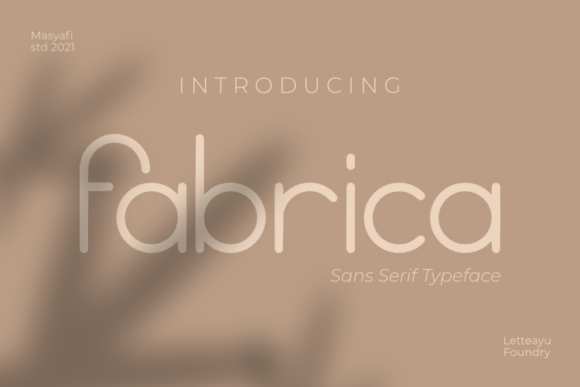
Unleash the Fashion-Forward Edge with Fabrica: The Sans Serif Font That Speaks Style
In a world where style and sophistication reign supreme, meet Fabrica - the sans serif font that's poised to transform your designs into fashion masterpieces. This meticulously crafted font exudes a minimalist allure, yet packs a punch with its ability to elevate your projects to new heights.
Fabrica is the brainchild of Letterayu, a renowned font foundry known for their impeccable attention to detail and unwavering commitment to quality. This font is a testament to their dedication, seamlessly blending simplicity and elegance into a single, cohesive design.
Dive into the world of Fabrica and discover a font that effortlessly complements an array of projects, from fashion catalogs and magazines to social media posts and branding materials. Its clean lines, coupled with its inherent versatility, make it the perfect choice for designers seeking to create visually stunning and impactful designs.
Picture this: Fabrica gracing the pages of your latest fashion magazine, adding a touch of sophistication to your captivating editorials. Or envision it adorning your social media posts, drawing eyes with its sleek and modern aesthetic. Fabrica's versatility knows no bounds, making it the ultimate choice for designers who demand excellence.
But what truly sets Fabrica apart is its ability to evoke emotion. This font possesses an innate charm that speaks to the heart, resonating with audiences on a deeper level. Whether you're crafting a fashion campaign that exudes elegance or a lifestyle brand that radiates warmth, Fabrica has the power to transform your vision into a reality.
So, step into the realm of Fabrica and unlock a world of possibilities. Let this font be your muse, guiding you towards designs that captivate, allure, and leave a lasting impression. Embrace the fashion-forward edge that Fabrica brings, and watch your creative endeavors flourish.